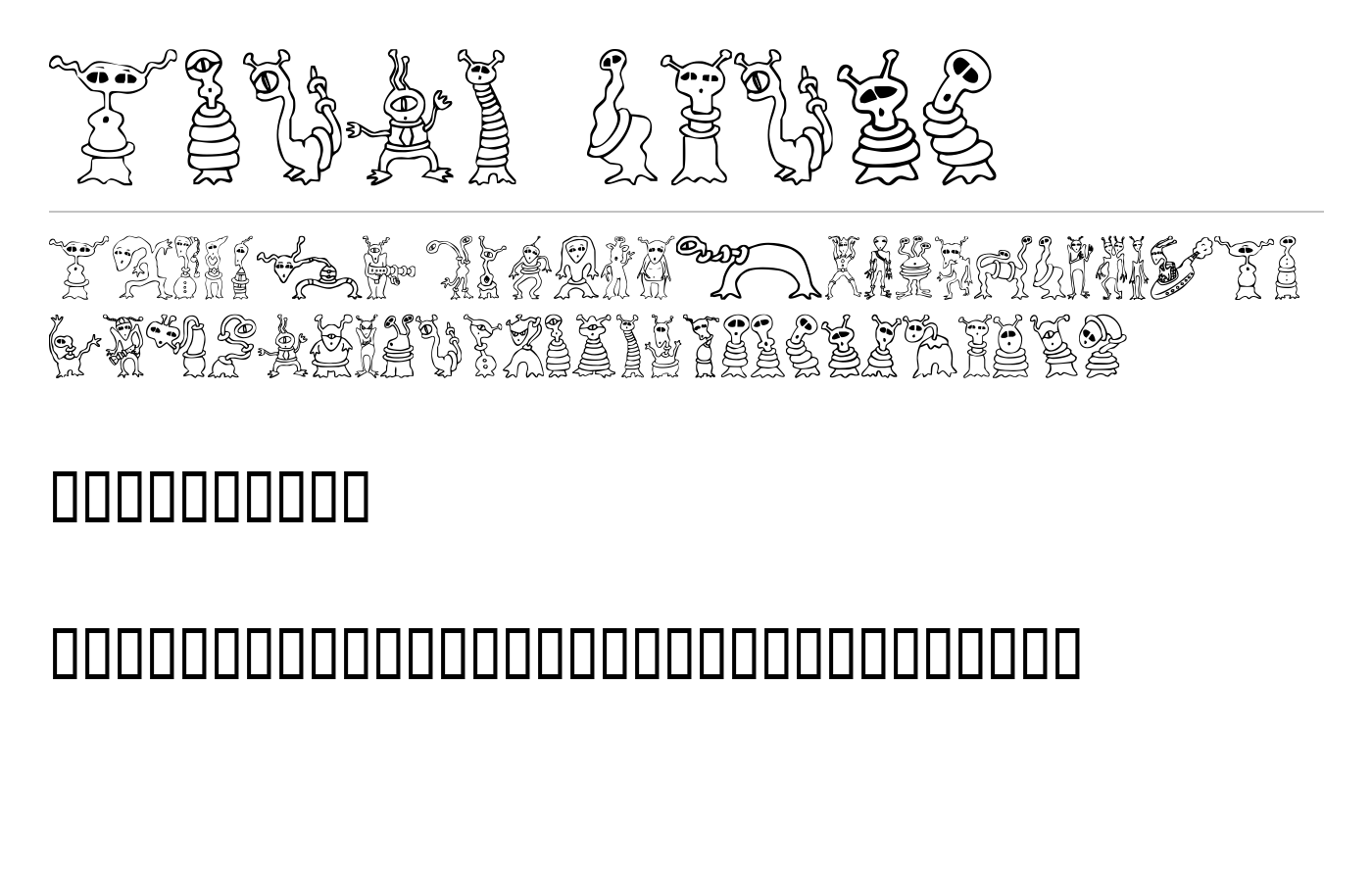
Alien Twits is a playful and whimsical decorative font made up of quirky alien characters instead of traditional letterforms. Its organic, hand-drawn shapes bring a fun, imaginative vibe that works great for kids’ projects, sci-fi themes, or anything needing a touch of creativity and humor. This unique font is perfect for eye-catching headlines, posters, or themed designs that want to stand out with a distinctive personality.
Alien Twits Font
About Alien Twits Font